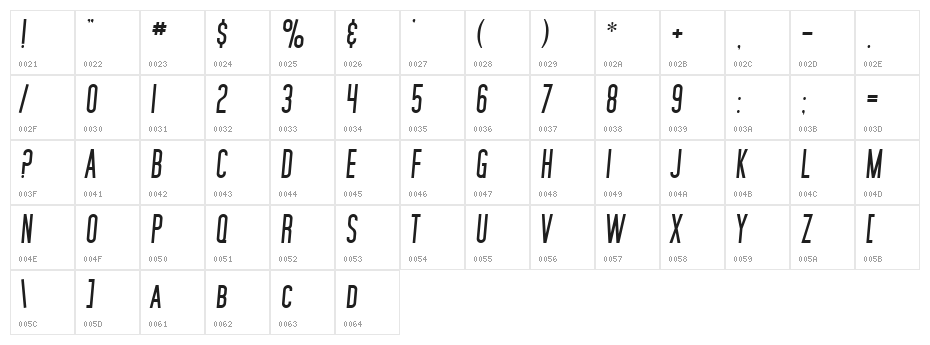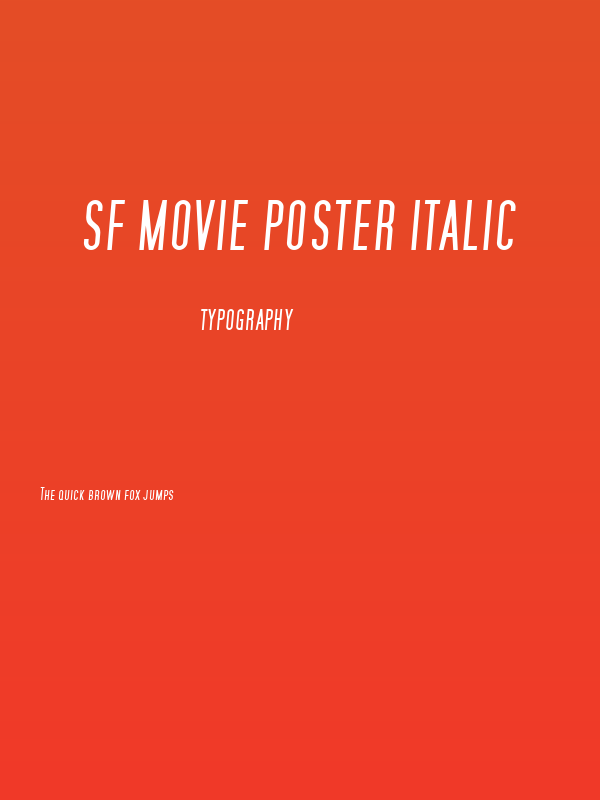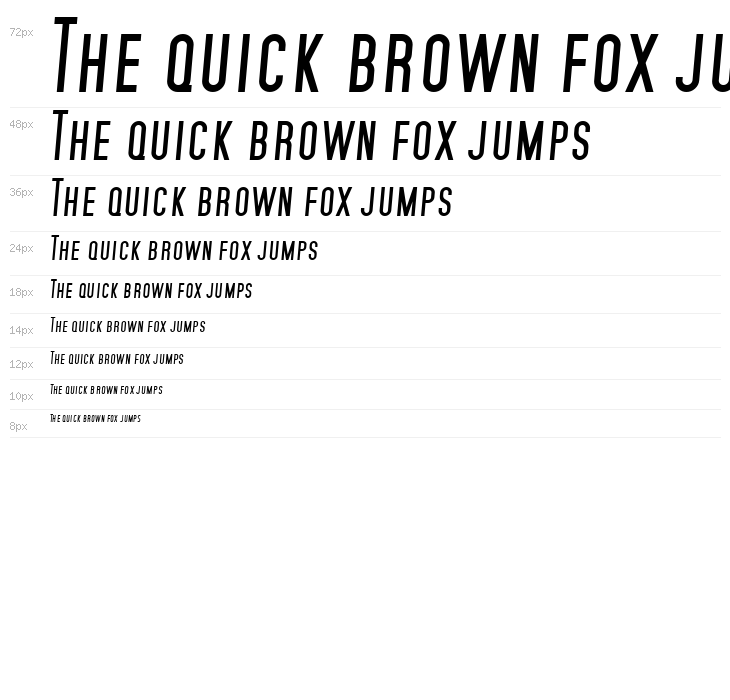
SF Movie Poster Italic Font
SF Movie Poster Italic Description
This typeface features a bold and dynamic italic style, characterized by its tall, narrow letters with a slight slant, giving it a sense of motion and urgency. The uppercase and lowercase letters maintain a consistent height, enhancing readability while adding a touch of elegance. The numerals are clear and distinct, matching the overall aesthetic of the letters. Special characters are well-defined, complementing the font's sleek and modern appearance. The font's design is ideal for capturing attention, making it suitable for impactful headlines and titles.
| Proposed Projects | Ideal for movie posters, advertising campaigns, and branding materials that require a strong visual impact. |